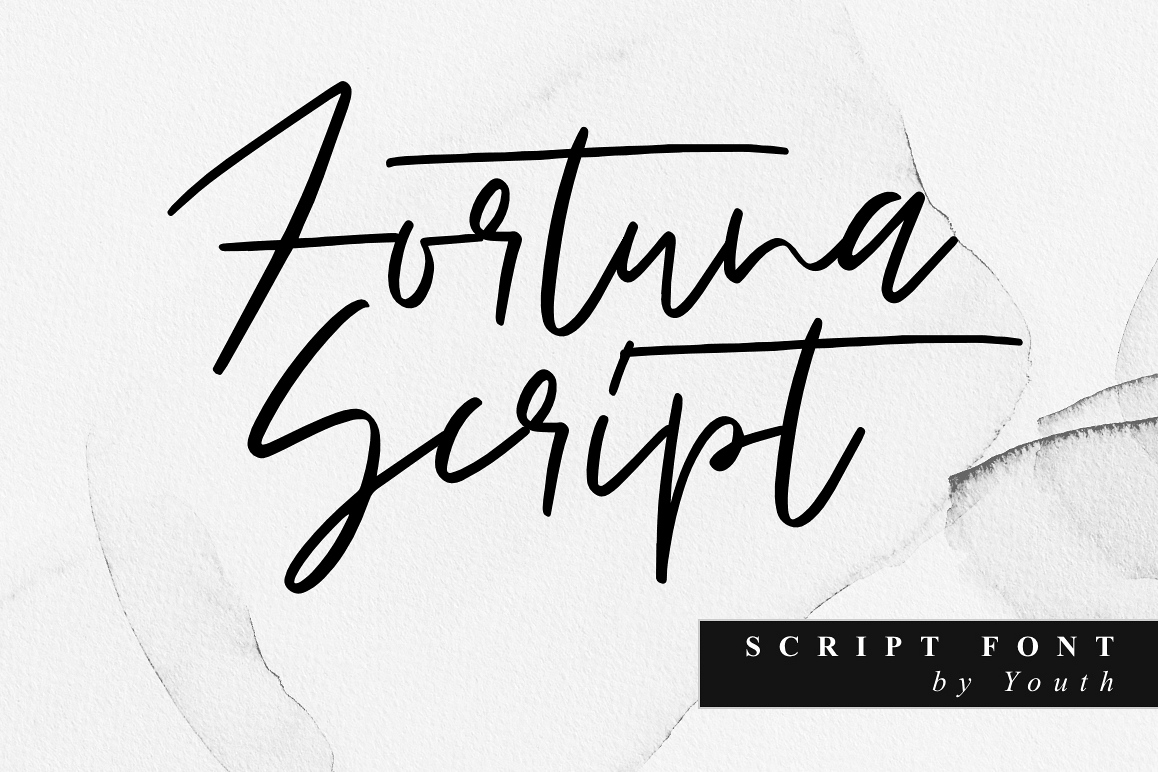
Fortuna handwritten script
This modern calligraphy script  has been attentively written, with gentle curves to produce a font thats completely distinctive and original. It contains a full set of lower & uppercase letters, a large range of punctuation, numerals, and multilingual support. Perfect for adding a elegant and unique touch to your lettering projects and branding